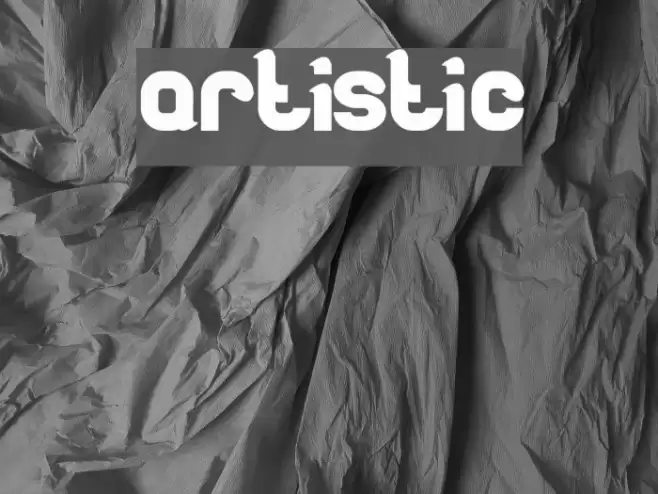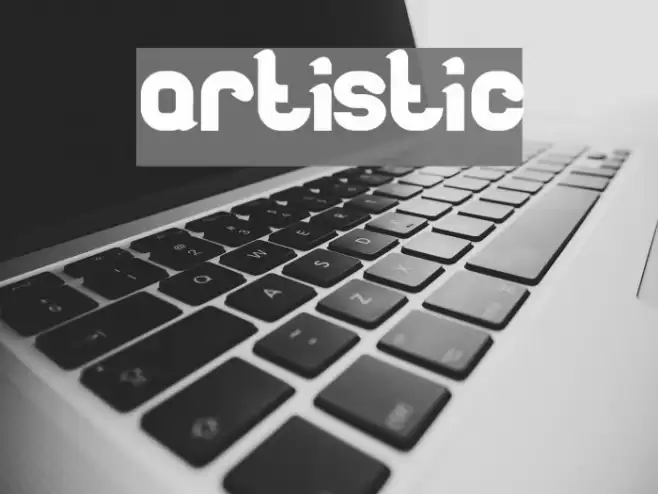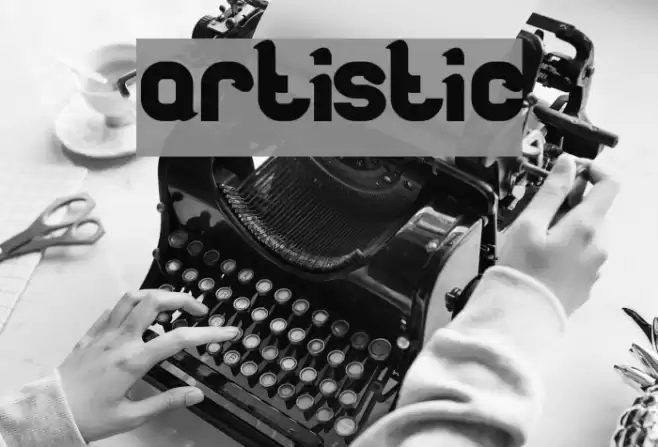
artistic Font
artistic Description
This font features a bold and modern design with a unique, artistic flair. The characters are rounded and have a distinct, playful appearance, making them stand out. The font exhibits a consistent stroke width throughout, contributing to its bold presence. The letters are closely spaced, creating a compact and cohesive look. The overall style is decorative, with a contemporary twist that adds a touch of creativity and fun to any design. The font's unique character shapes make it ideal for projects that require a distinctive and eye-catching typeface.
A bold, modern font with a playful and artistic design from Uncategorized fonts.
- Proposed Projects: Ideal for branding, posters, headlines, and creative projects that require a bold and unique typeface.
- Character Spacing: Tight
- Overall Style: Modern, Decorative